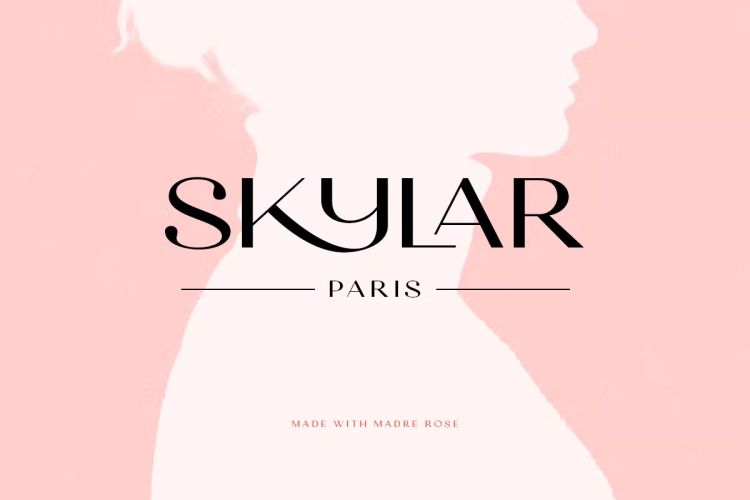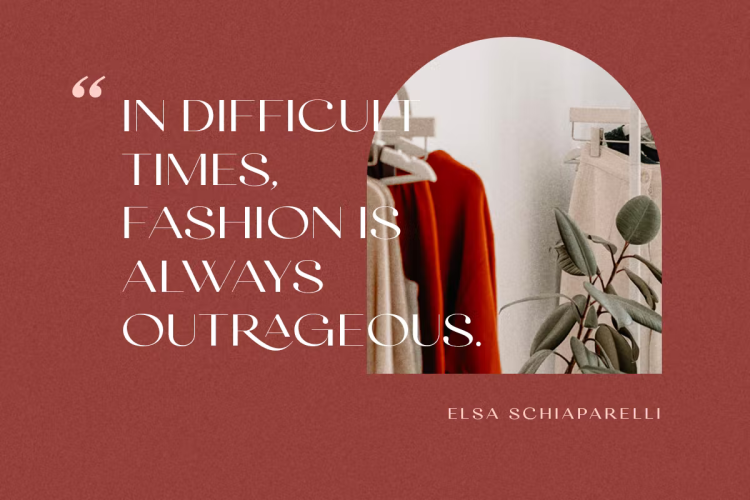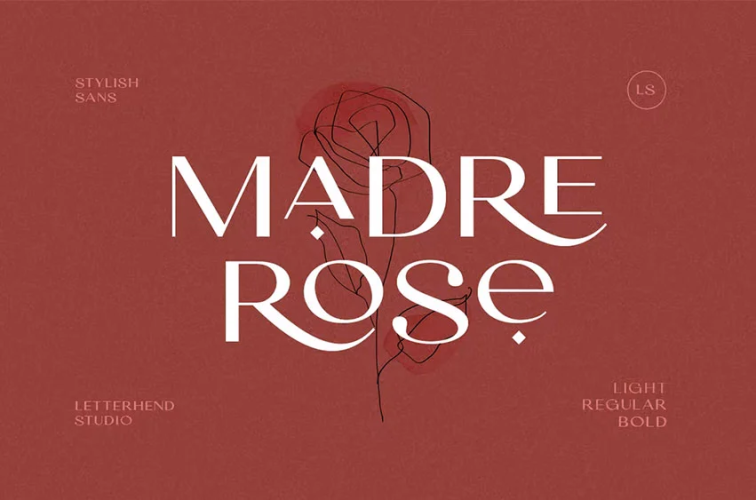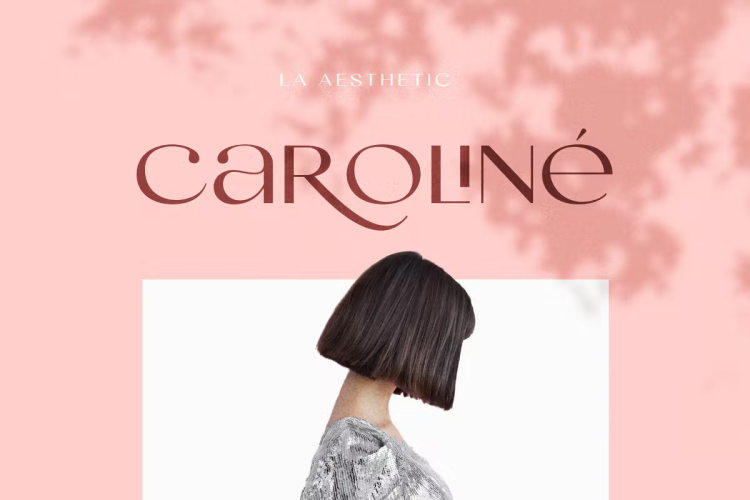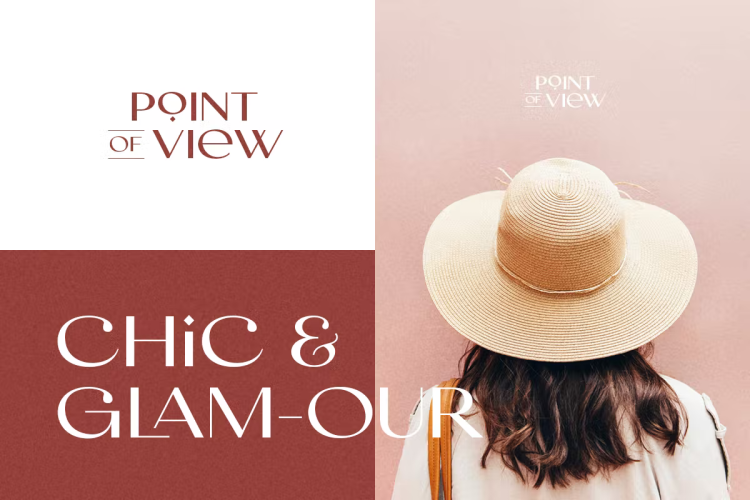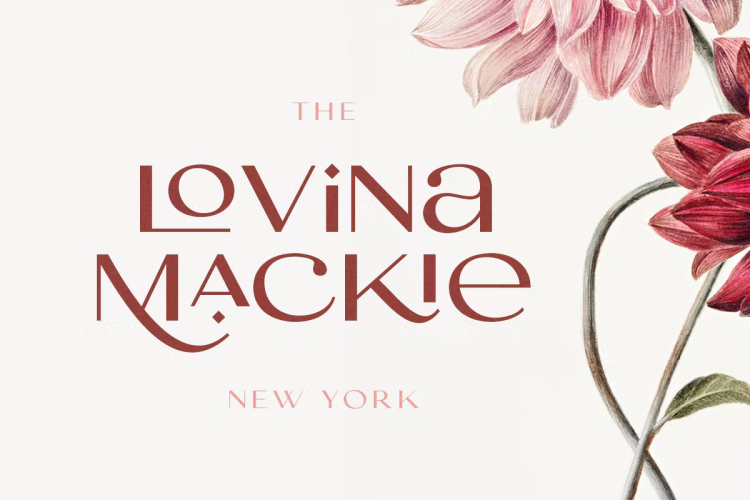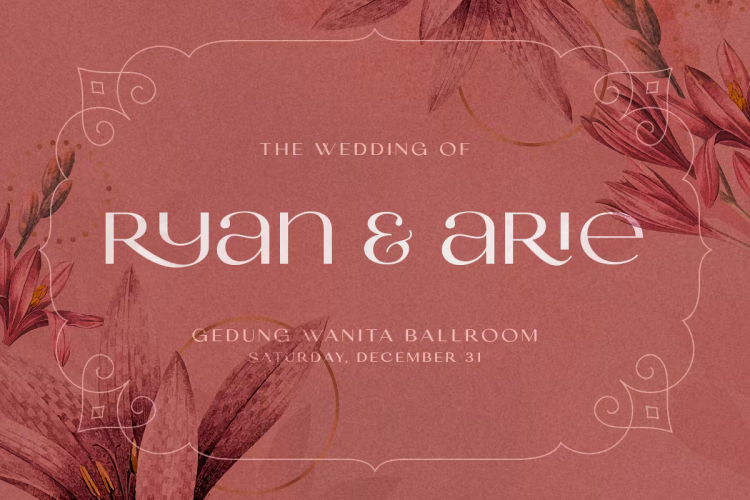
Madre Rose Font
Madre Rose Font is a sophisticated sans serif with 3 weight styles to choose from, bold, thin and regular. It has many beautiful ligatures which you can play around with…
Madre Rose Font is a sophisticated sans serif with 3 weight styles to choose from, bold, thin and regular. It has many beautiful ligatures which you can play around with to match your project, whether for a standout headline or for a tagline, you name it. The unique letterform makes this font one of a kind! Perfectly to be applied to the other various formal forms such as invitations, labels, logos, magazines, books, greeting/wedding cards, packaging, fashion, make-up, stationery, novels, labels, or any type of advertising purpose.
Features :
Where Madre Rose Font works best
Madre Rose Font stays legible at small sizes, which makes it a strong choice for navigation, buttons and dashboards in web design and app interfaces.
Clean sans serifs like Madre Rose Font are the default language of SaaS, fintech and product branding.
What is Madre Rose Font good for?
Madre Rose Font is a Sans Serif Fonts typeface tagged Bold, Branding, Editorial, Elegant. It works well for headlines, logos, posters, social media graphics and branding projects that need a distinctive sans serif fonts look.